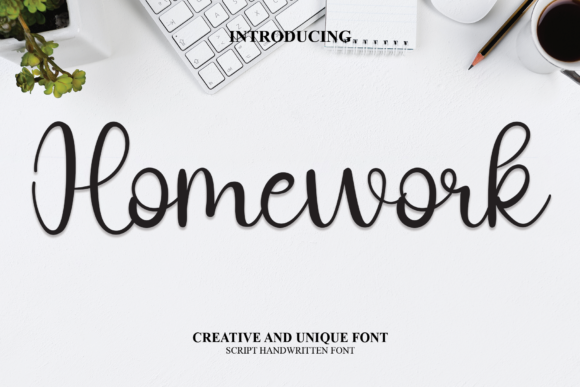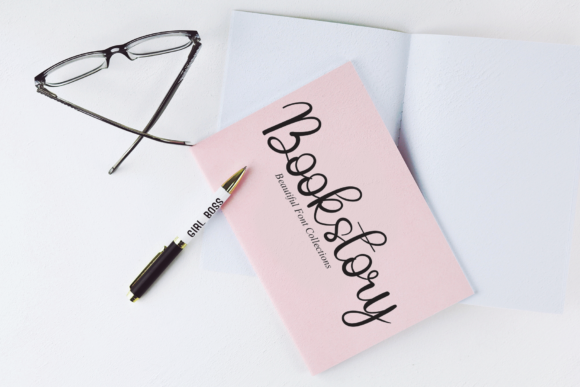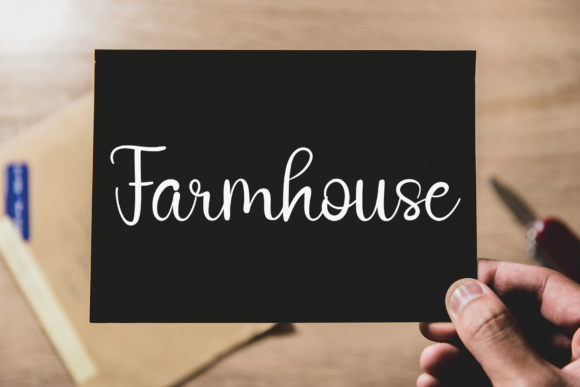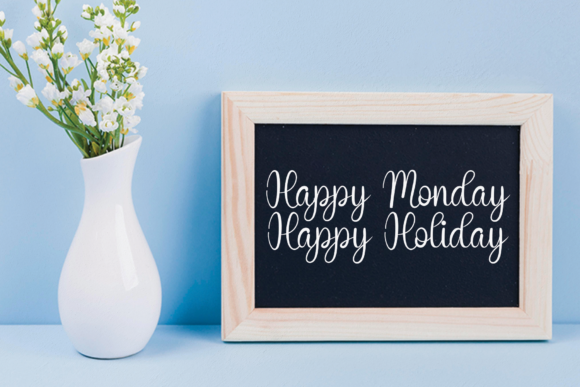
About Homework Font
Homework is a sweet and subtle handwritten font that is crafted with great care for maximum results. It will add elegance and class to any of your design projects. This font can be used to write various kinds of products according to the aspect of each need.